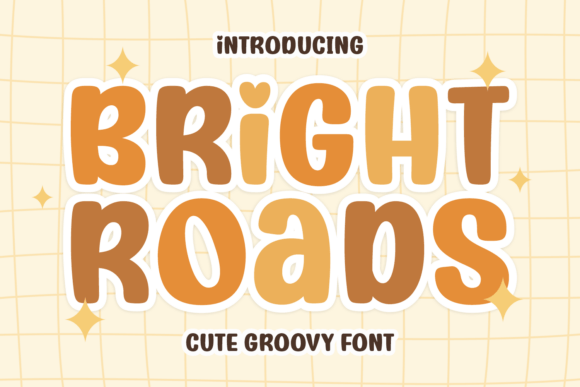
Discover the Joyful World of Bright Roads Font
Have you ever been in the middle of a design project, and suddenly, the font just isn’t feeling right? You’re trying to convey a sense of fun and playfulness, but the text looks dull and uninspiring. I recall a project where I was working on a children’s book, and I just couldn’t find the perfect font to match the story’s lighthearted tone. That’s when I stumbled upon Bright Roads Font, and it completely transformed my design.
A Personal Review of Bright Roads Font
Bright Roads is a cheerful and playful, cute, groovy display font designed to bring warmth and positivity to your projects. Here’s what I love about it:
- ✨ Unique and charming details: The heart-shaped dot in the “I” adds a sweet personal touch that sets it apart from other fonts.
- ✅ Strong, confident presence: The thick strokes and consistent weight give it a bold and eye-catching appearance.
- ✅ Approachable and fun: The soft edges and smooth curves keep the font friendly and inviting.
- ✨ Retro-inspired, groovy feel: Bright Roads combines a vintage vibe with modern clarity, making it perfect for a wide range of projects.
While Bright Roads is an amazing font, it’s not without its quirks:
- ⚠️ Limited use in body text: Due to its bold and playful nature, Bright Roads might not be the best choice for lengthy body text. It’s perfect for headings, titles, and short paragraphs, but may not be suitable for larger blocks of text.
- 🤔 Color palette considerations: While the font shines in vibrant color palettes, it may not be the best choice for projects with more muted or monochromatic color schemes.
The Story Behind Bright Roads Font
Bright Roads was designed with the intention of creating a font that would bring joy and positivity to any project. The designer, inspired by the retro vibes of the 70s and 80s, aimed to create a font that was both fun and modern. With its bold, rounded letterforms and charming details, Bright Roads is sure to become a favorite in your font collection.
| Font Name | Bright Roads Font |
| Author | Dito (7NTypes) |
| Q: What type of projects is Bright Roads best suited for? | A: Bright Roads is perfect for children’s books, branding, product packaging, posters, greeting cards, and social media graphics. |
| Q: Does Bright Roads support OpenType features? | A: Yes, Bright Roads supports OpenType features like ligatures and stylistic alternates, which can be accessed in compatible design software. |